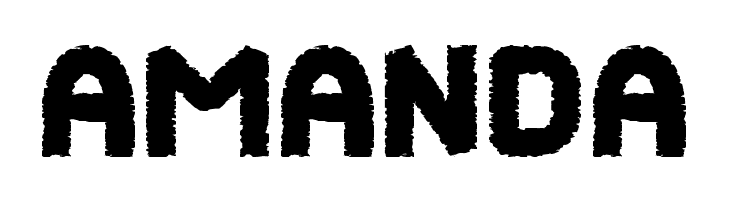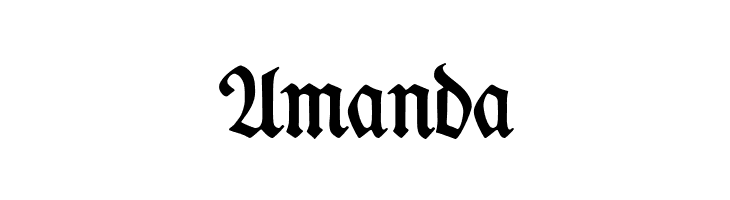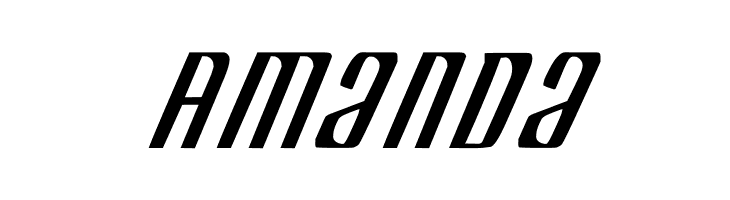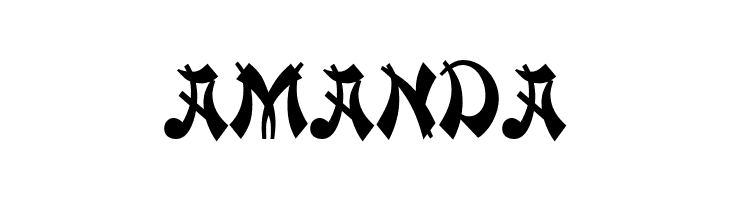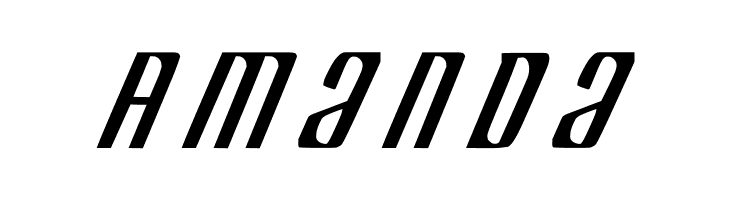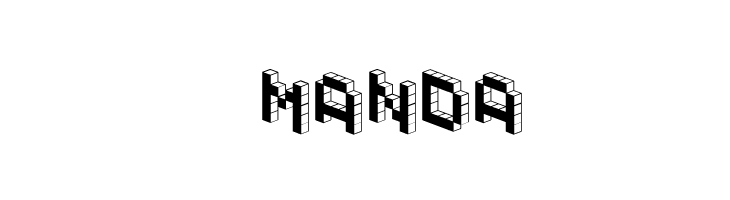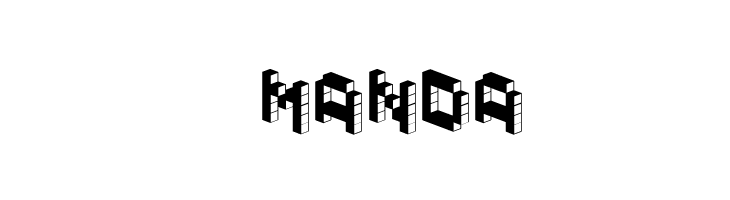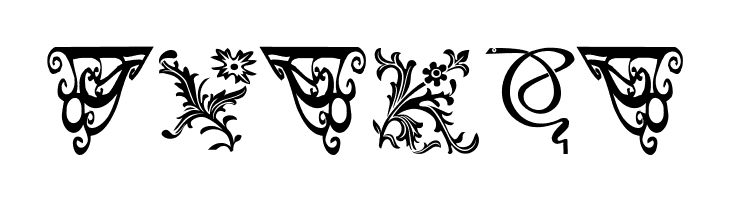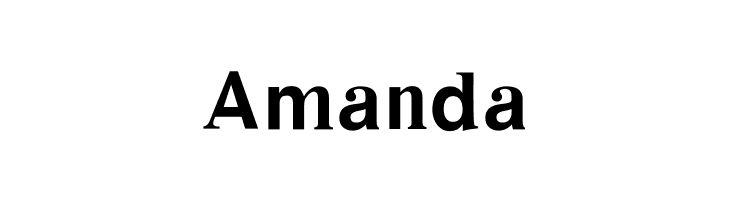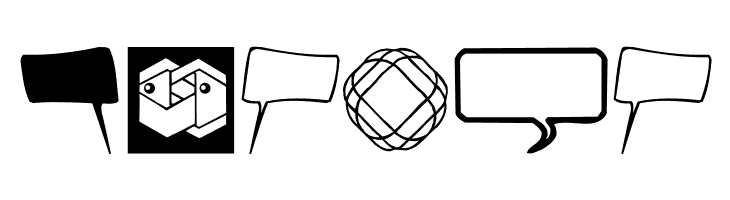
• DemonCubicBlockFont Black
• DemonCubicBlockFont Dark
• DemonCubicBlockFont Shade
• DemonCubicBlockFont Tile
• DemonicHyperNovaFont
• DemonicWipeoutXLFont
A bold, geometric font with sharp angles and dynamic cutouts.
• DemonWipeOutFont
A bold, geometric font with a futuristic and modern design.
• DemonWipeOutFont Proportional
A bold, futuristic font with geometric shapes and a modern aesthetic.
• DemonWipeoutXLFontProportional
A bold, geometric font with a futuristic and edgy design.
• Deng Thick
• Densmore-Regular
A bold, decorative font with high contrast and unique geometric cutouts.
• Department H
A bold, angular font with a dynamic, forward-leaning style.
• Department K
A bold, italicized font with a modern, dynamic style and high contrast.
• Desastra-Bold
A bold serif font with strong strokes and classic design.
• Desgarvuda
A bold, textured font with a distressed, vintage appearance.
• Desgastada tfb
A textured, distressed font with a modern, graffiti-like style.
• DesignBasics
A pictogram-based decorative dingbat font with abstract and whimsical illustrations.
• DesignDesign-Regular
A creative font designed to resemble pencil drawings, ideal for educational themes.
• DesignElemente
A diverse set of ornamental and symbolic pictograms in bold black silhouettes.
• DesignElementsTwo
A decorative dingbat collection with abstract, geometric, and illustrative icons.
• Designer Block
A bold, geometric font with rounded edges, offering a modern and futuristic look.
• Designer Notes
• DesignerBlock
A bold, geometric font with rounded edges and a modern, futuristic style.
• DesignersWeAll
An artistic and decorative font with each character enclosed in a detailed emblem.